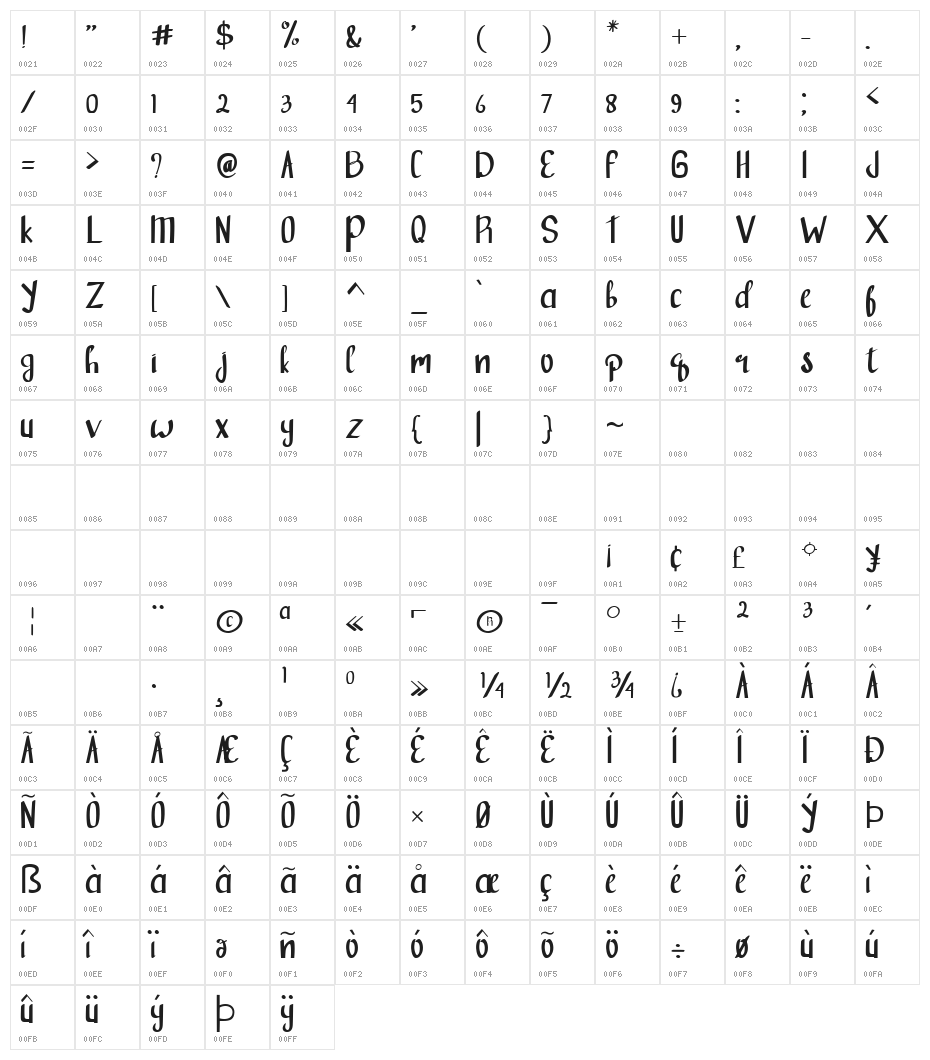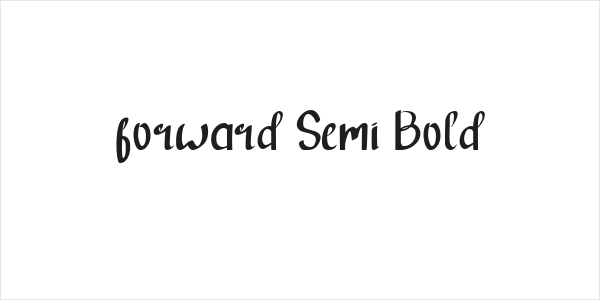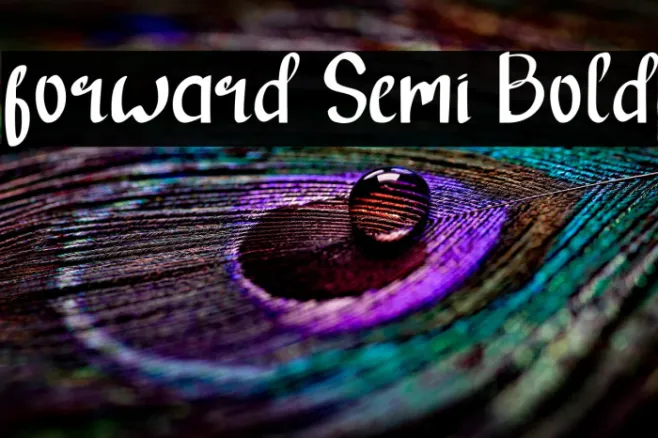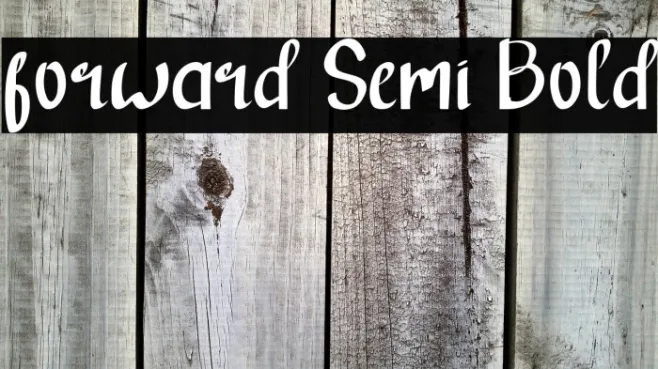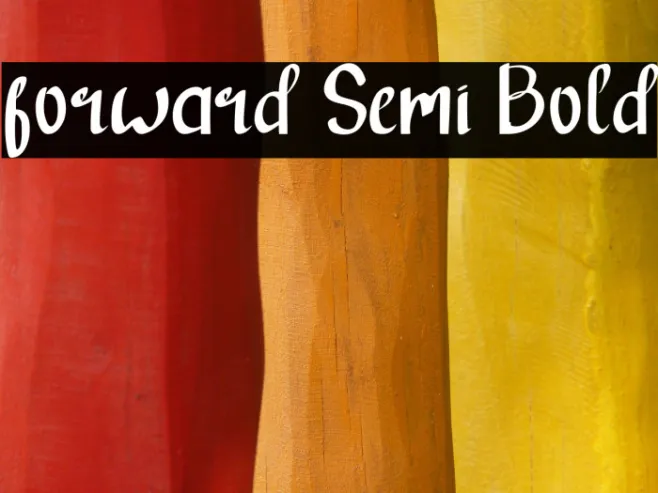
forward Semi Bold Font
forward Semi Bold Description
This font exhibits a playful and dynamic style with a handwritten appearance. The characters are bold and slightly condensed, featuring a mix of smooth curves and sharp angles that give it a lively and energetic feel. The uppercase letters are tall and commanding, while the lowercase letters maintain a consistent flow with a touch of whimsy. Numbers are clear and legible, matching the overall style of the alphabet. Special characters are creatively designed, adding to the font's unique personality. This font is suitable for projects that require a personal and informal touch, such as invitations, greeting cards, or creative branding.